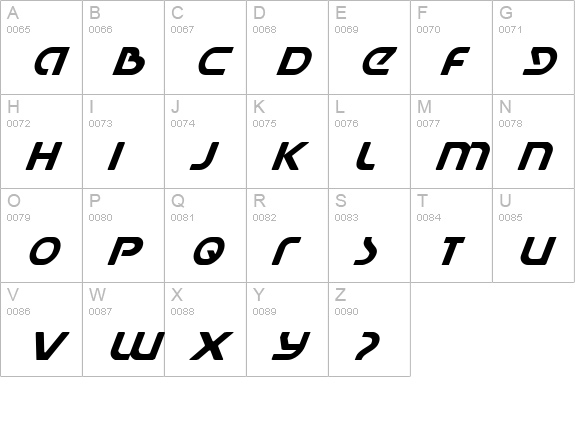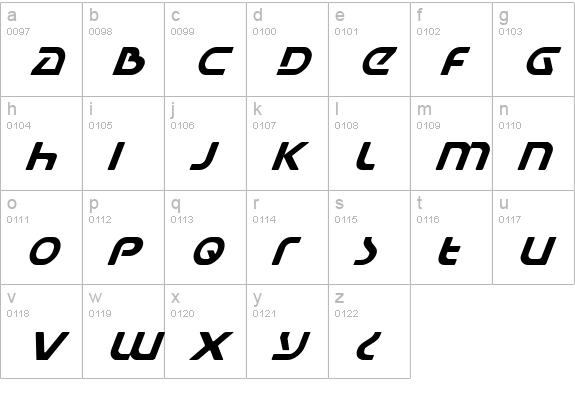
Universal Jack Italic Font Details
Universal Jack Italic is a distinctive, italic variant in the Universal typeface family \xE2\x80\x94 well suited to design and typography projects.
Universal Jack Italic font is a striking and stylish typeface that exudes a sense of modernity and creativity. With its unique combination of clean lines and subtle curves, this font captures attention and adds a touch of sophistication to any design project. The italicized nature of Universal Jack Italic font adds a dynamic and elegant flair, making it perfect for headlines, logos, and branding materials. Its versatility allows it to seamlessly blend into various design styles, whether it be for print or digital media. One of the standout features of Universal Jack Italic font is its ability to evoke a sense of professionalism and confidence. Its sleek and contemporary appearance gives a polished and refined look to any text, making it an ideal choice for business presentations, professional documents, and corporate communications. What makes Universal Jack Italic font even more appealing is that it is available for free download at FontsMarket.com. This means that designers and creatives can access this exceptional font without any cost, making it an excellent option for those on a budget or simply looking to expand their font library. Whether you're a seasoned designer or just starting out, Universal Jack Italic font offers a wide range of possibilities for your creative endeavors. Its clean and legible design ensures readability in both small and large sizes, making it suitable for various applications. In conclusion, Universal Jack Italic font is a versatile and visually captivating typeface that adds a touch of elegance and sophistication to any design project. Its freely available download at FontsMarket.com makes it easily accessible to all, allowing designers to unleash their creativity without breaking the bank. So why not give Universal Jack Italic font a try and elevate your designs to new heights?